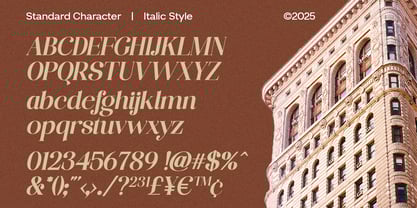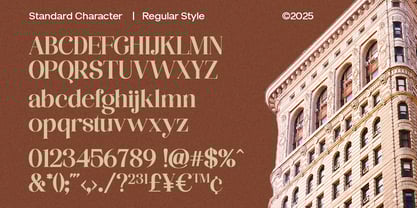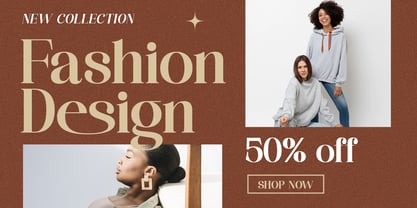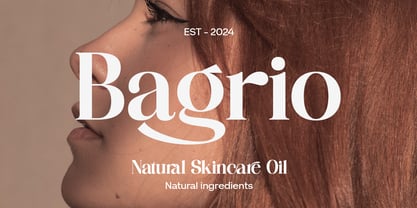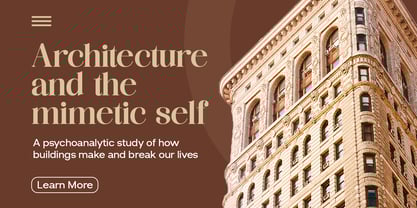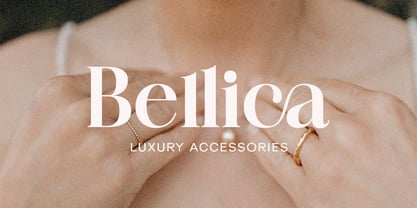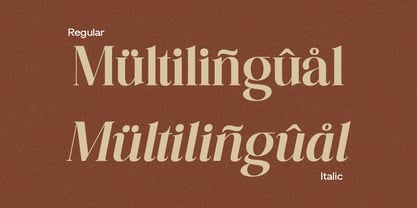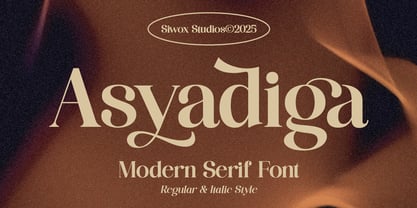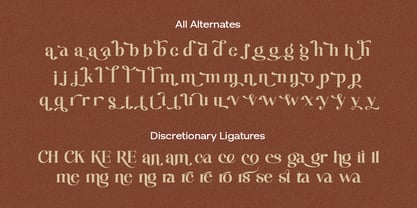
Asyadiga
The Asyadiga Font Family was designed by Rizaldi Wandani and published by Siwox Studios. Asyadiga contains 2 styles and family package options. More about this family
Asyadiga is a Serif typeface with ligatures and alternates. This font has two styles, regular and italic. Asyadiga is the right choice for those of you who want a clean, modern, minimalist, elegant, and beautiful design style. Suitable for almost all graphic designs such as logos, branding materials, business cards, gift cards, t-shirts, covers, thumbnails, prints, posters, photography, quotes, and so on.